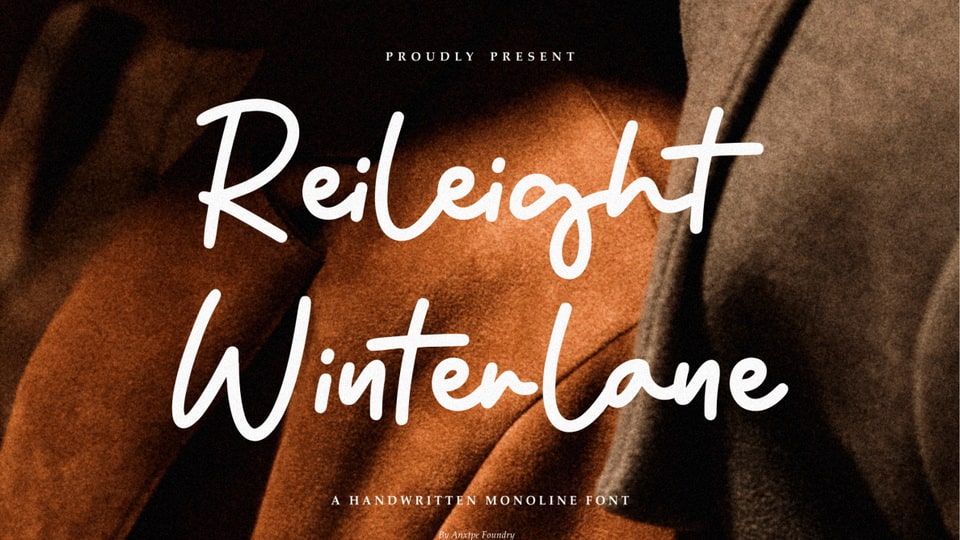
Download Reileight Winterlane font, a modern monoline typeface that accentuates design intricacies. This font is a brilliant choice for product packaging and branding initiatives.
Designer: Anxietype Foundry